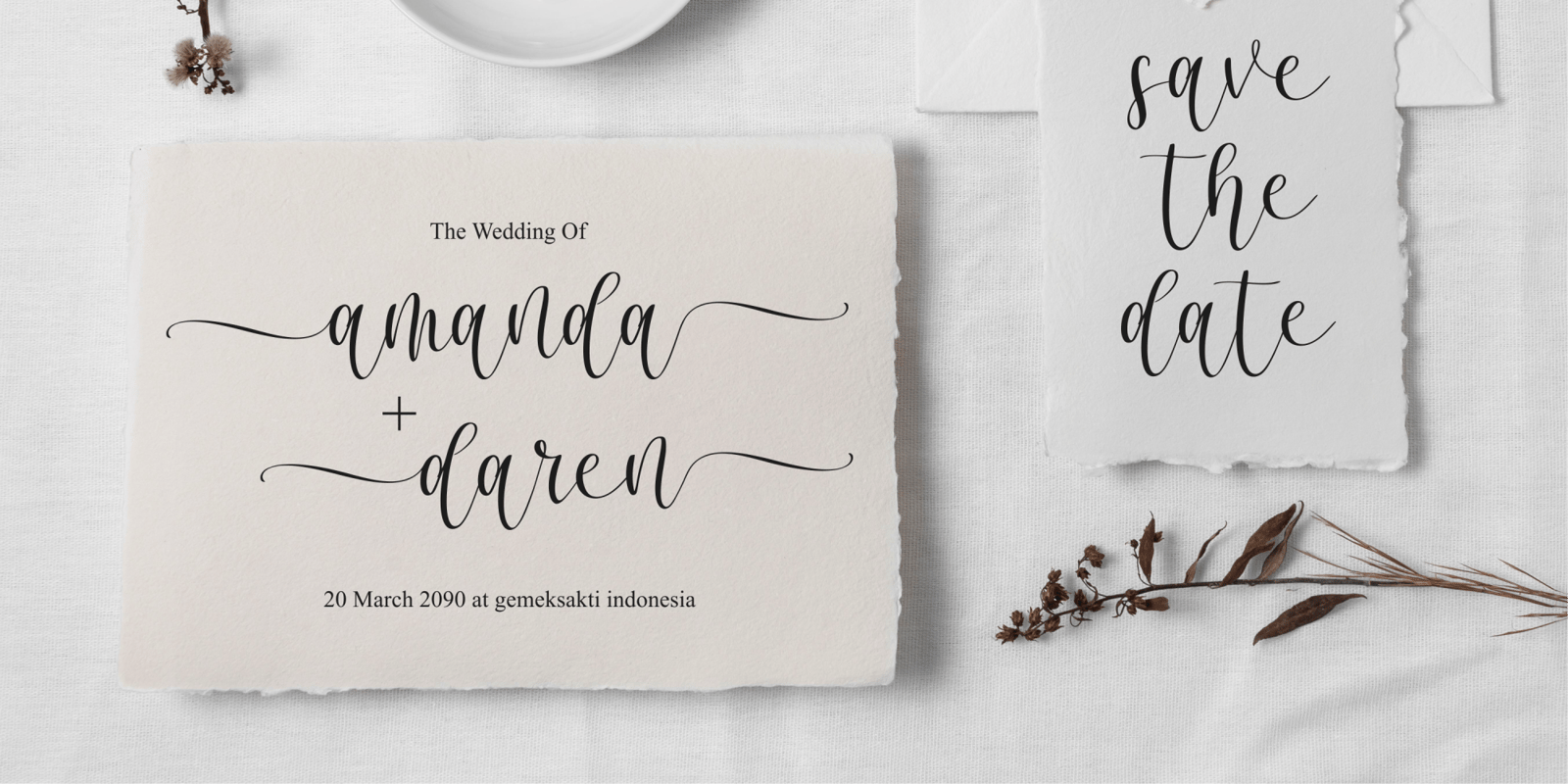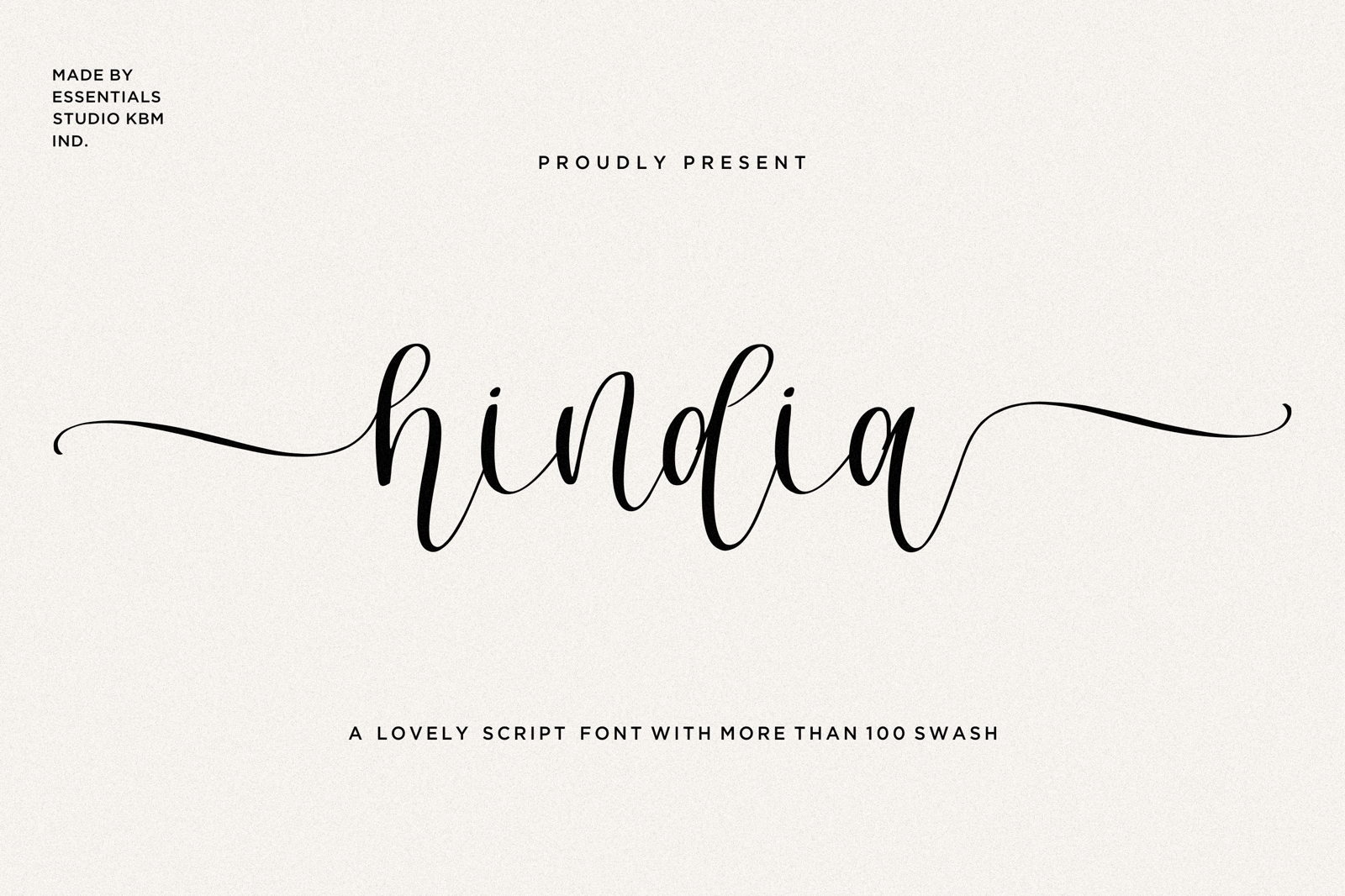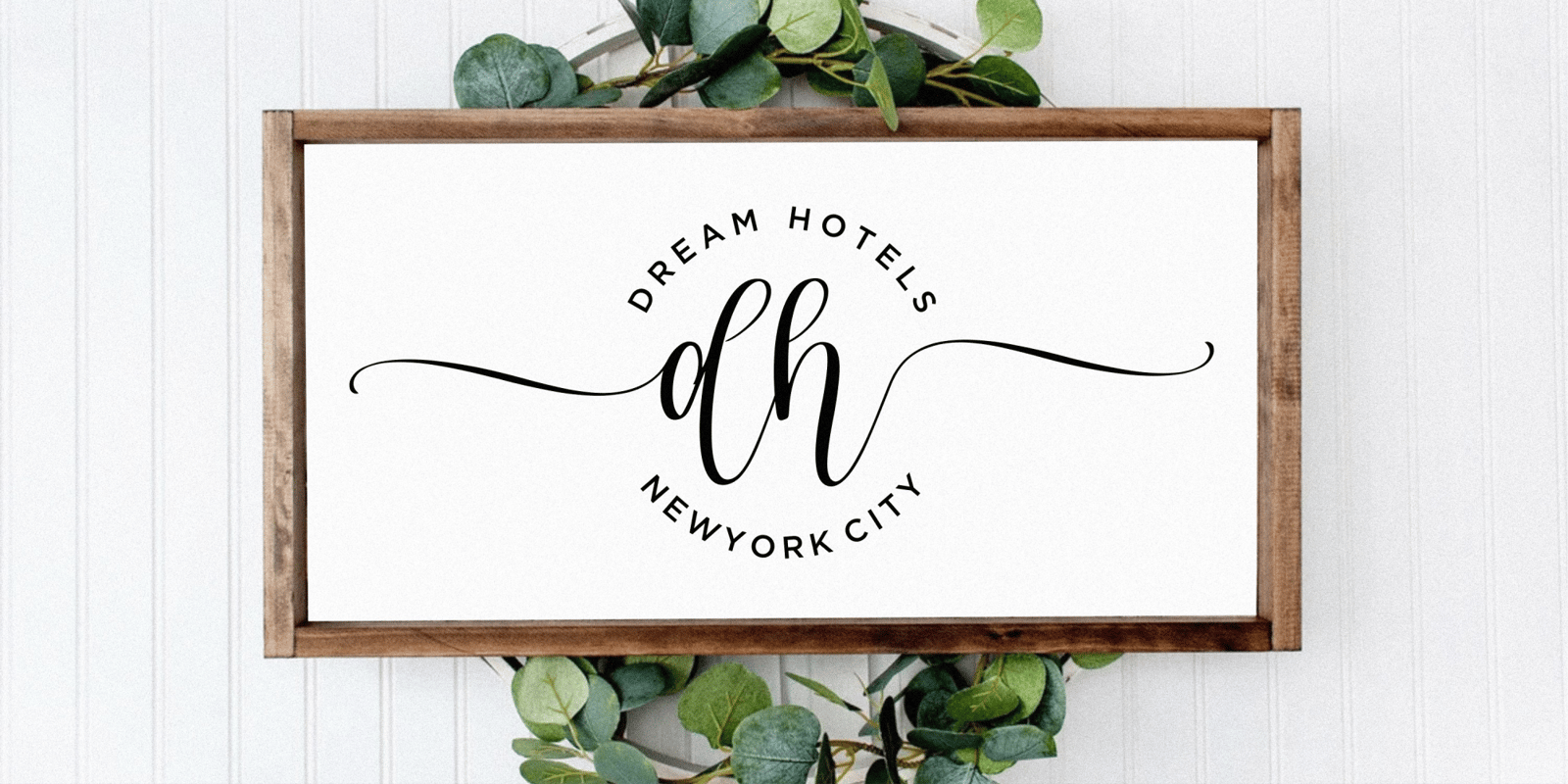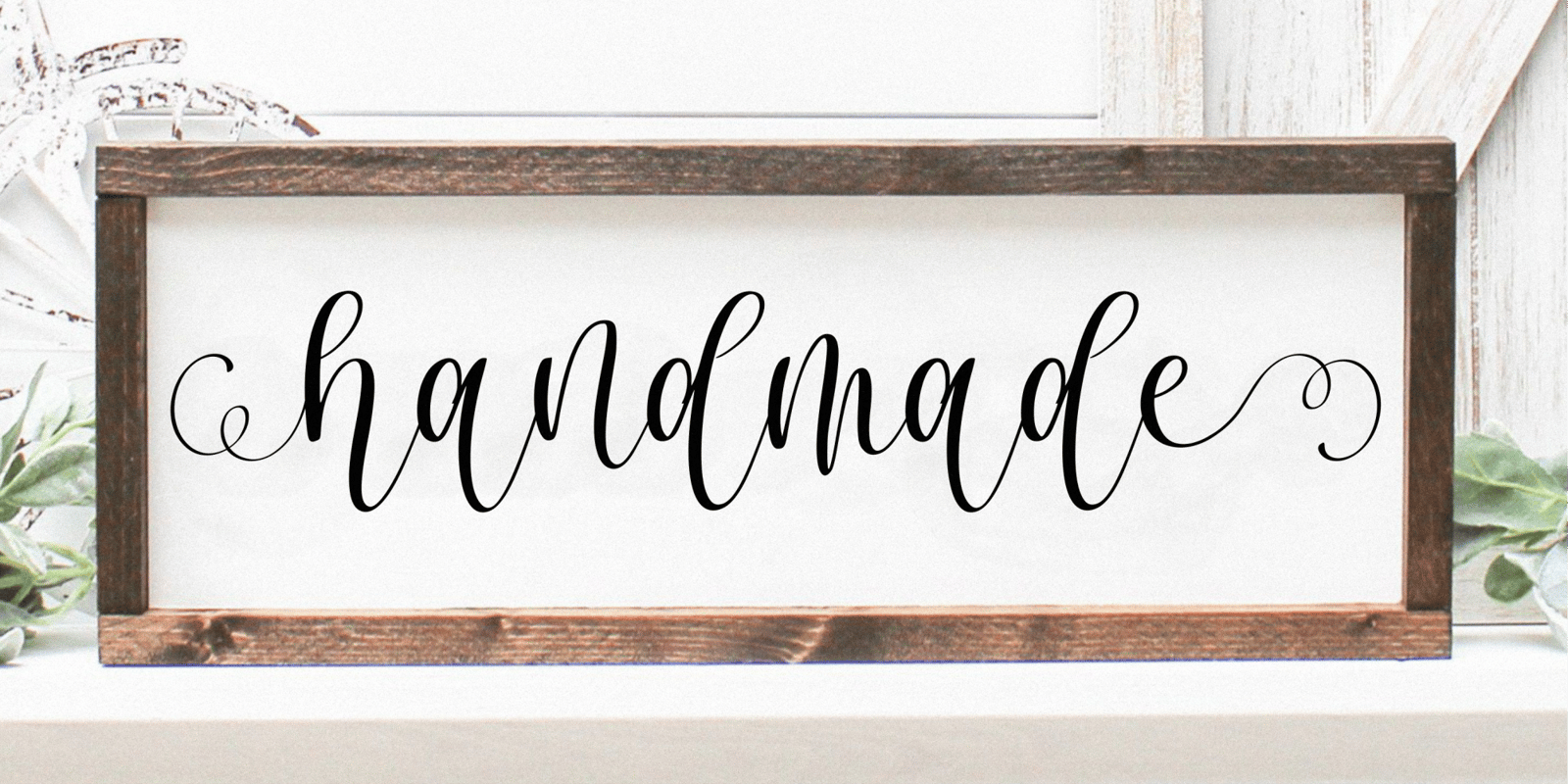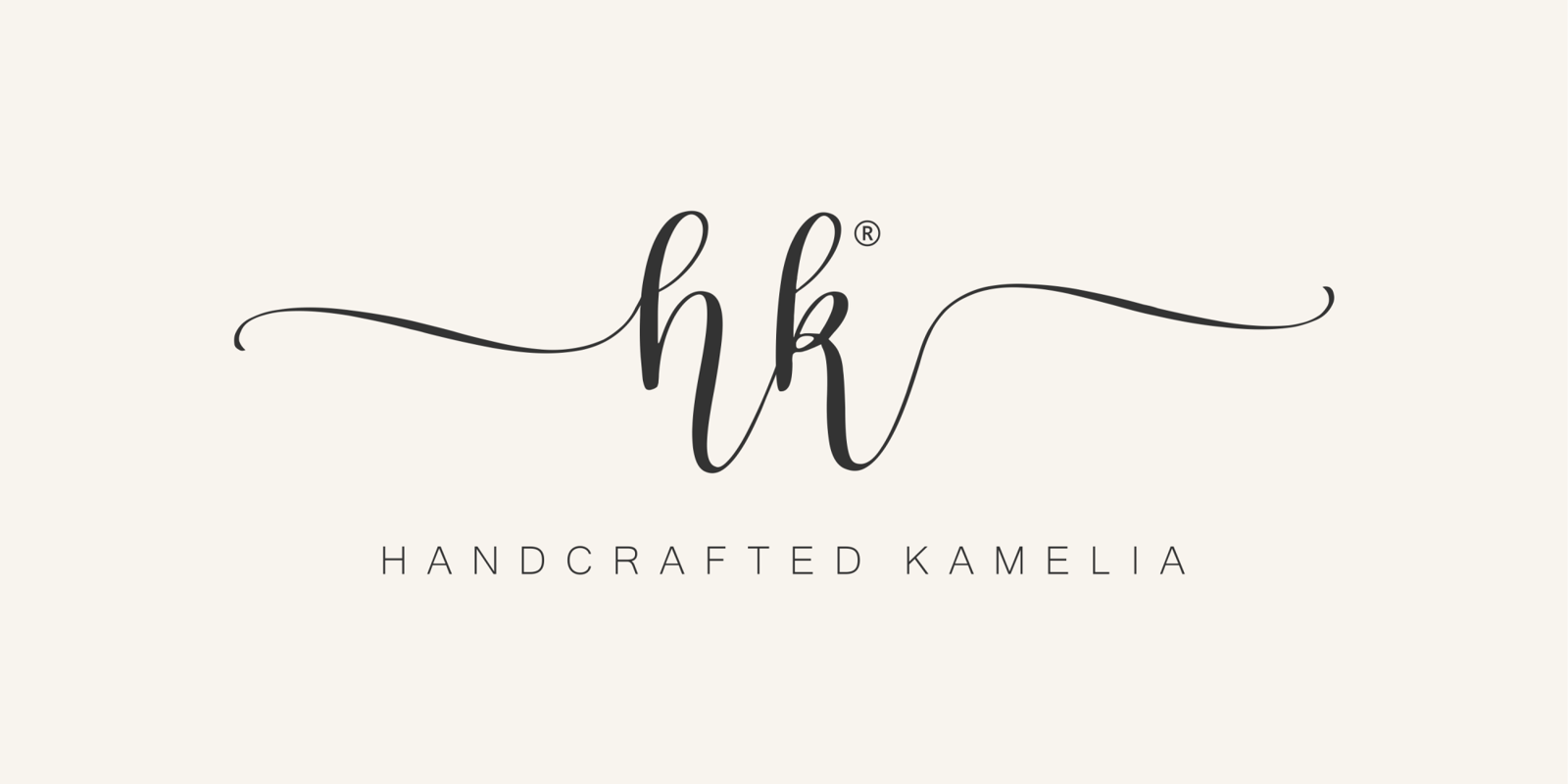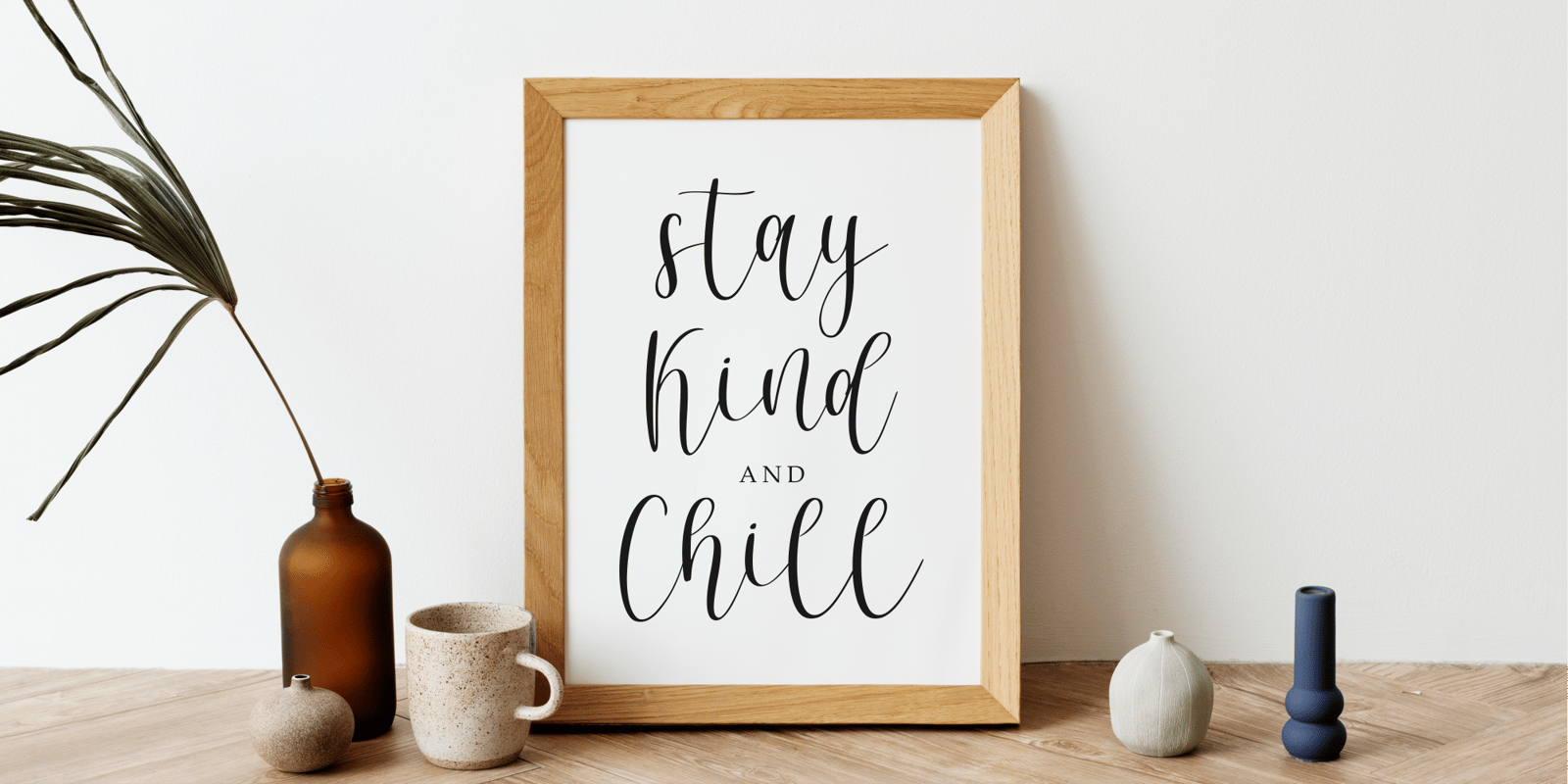
Hindia - Handwritten Script With Swash TailsHindia is an exquisite handwritten font, masterfully des
Hindia is an exquisite handwritten font, masterfully designed to become a true favorite. It maintains its classy calligraphic influences while feeling contemporary and fresh. Fall in love with it and bring your projects to the highest levels! This font is PUA encoded which means you can access all the glyphs and ligatures with ease!